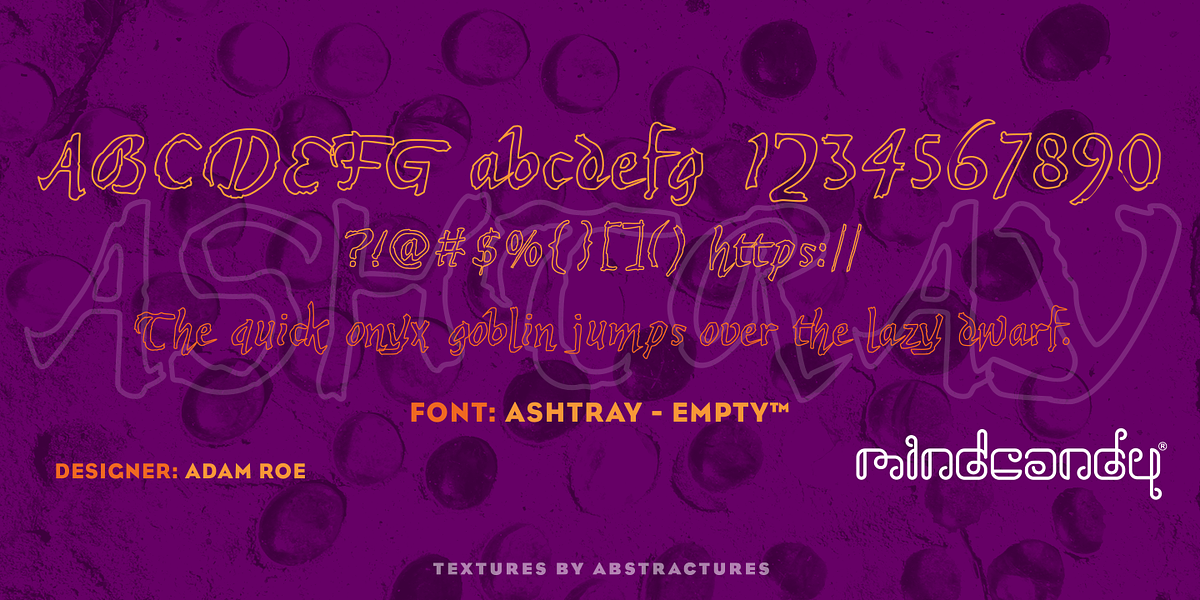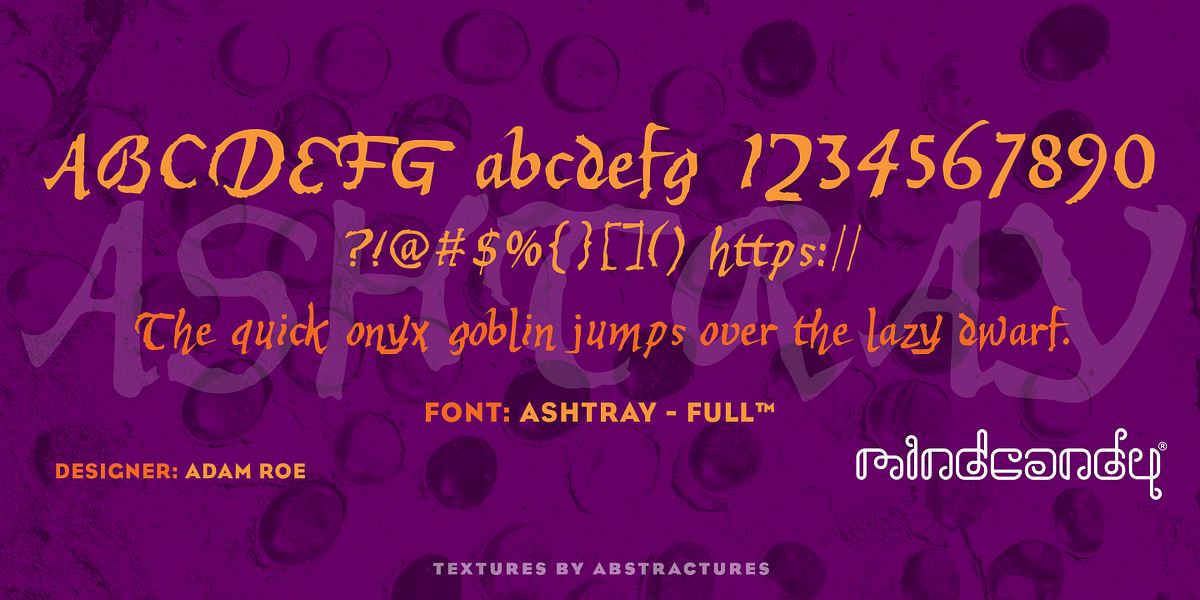
Ashtray™
Ashtray™ is a grunge-style script font designed by Adam Roe. It features a unique, hand-drawn aesthetic with rough and bouncy strokes, making it suitable for novelty designs and themes like Halloween.